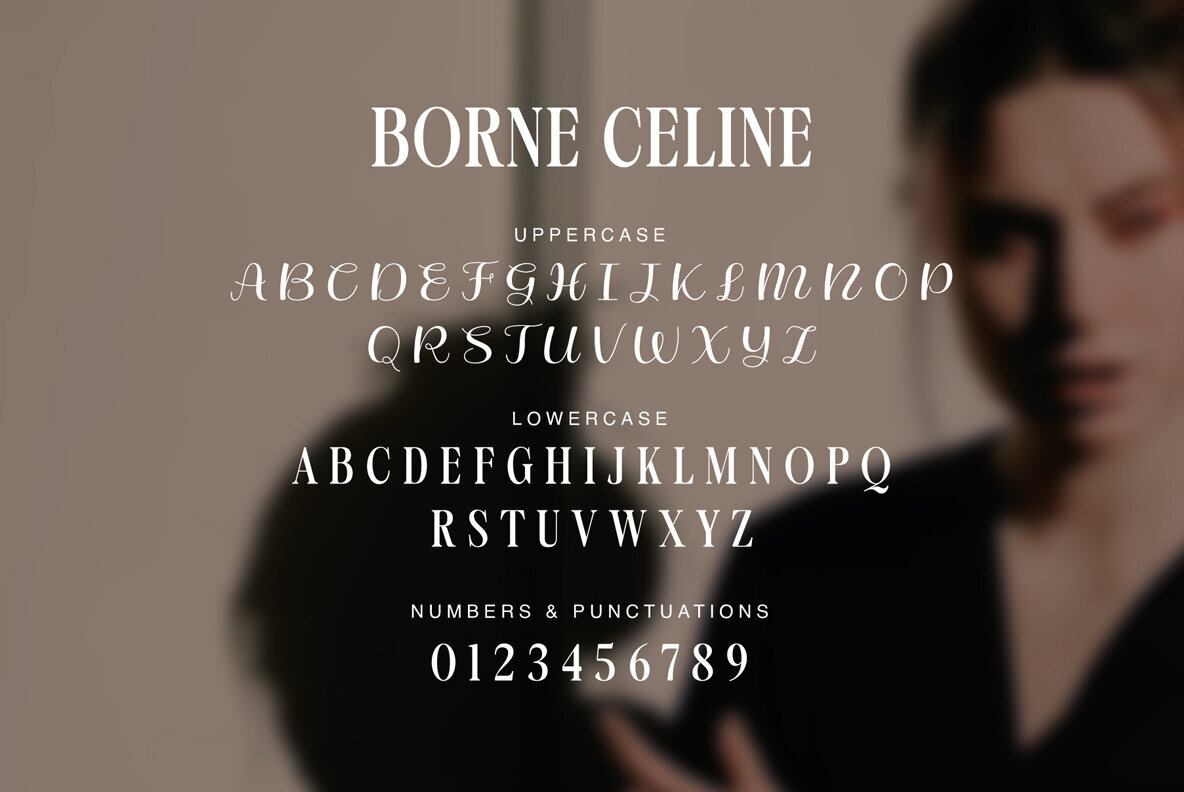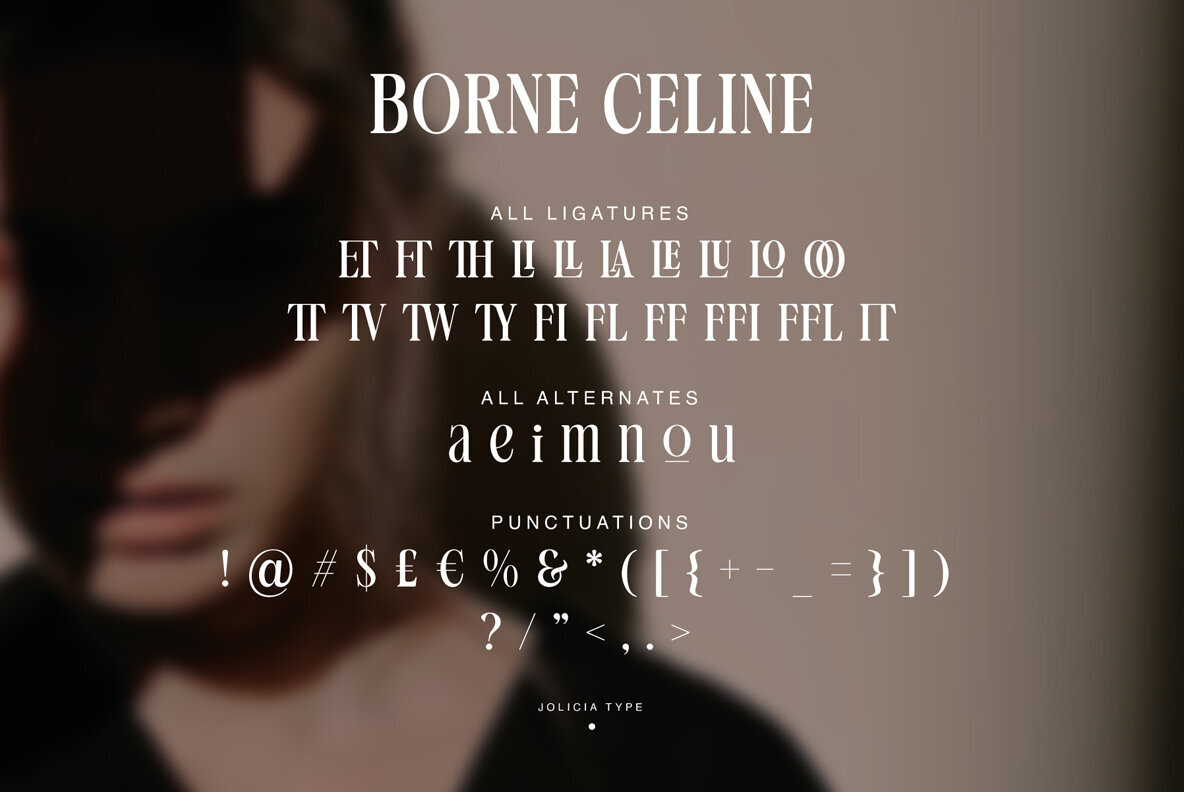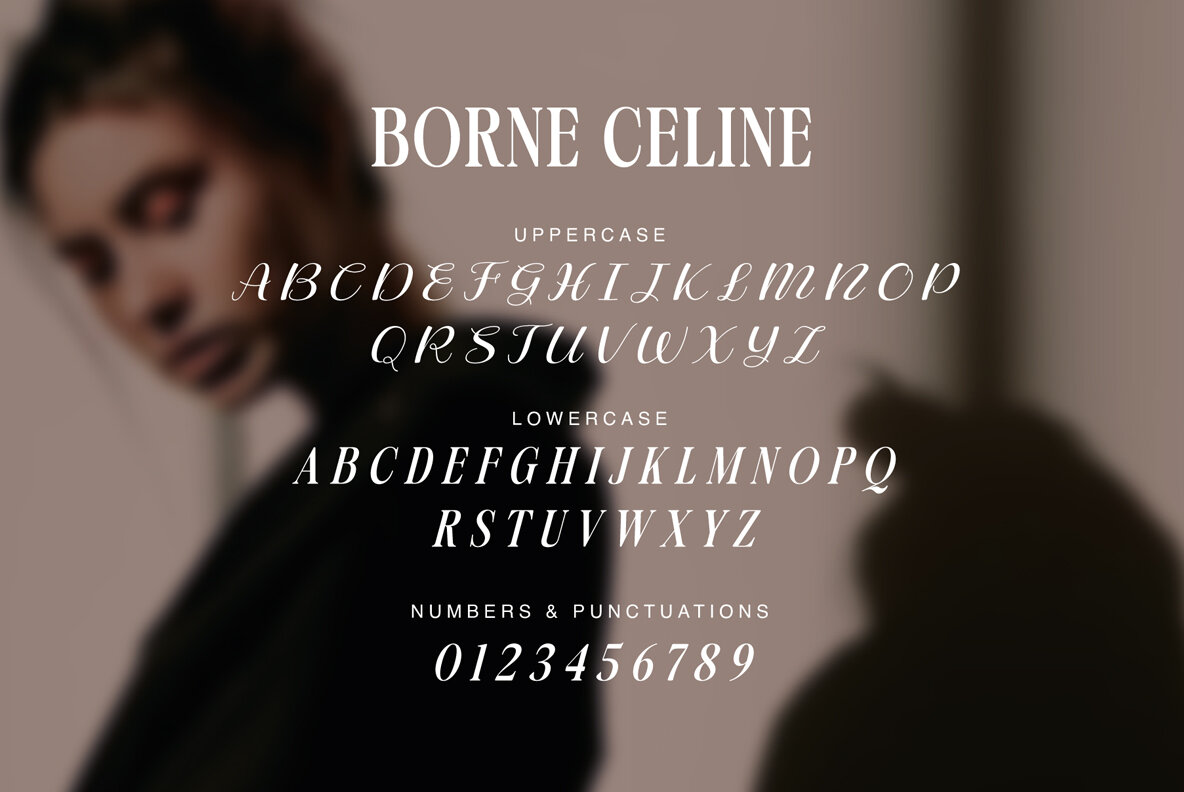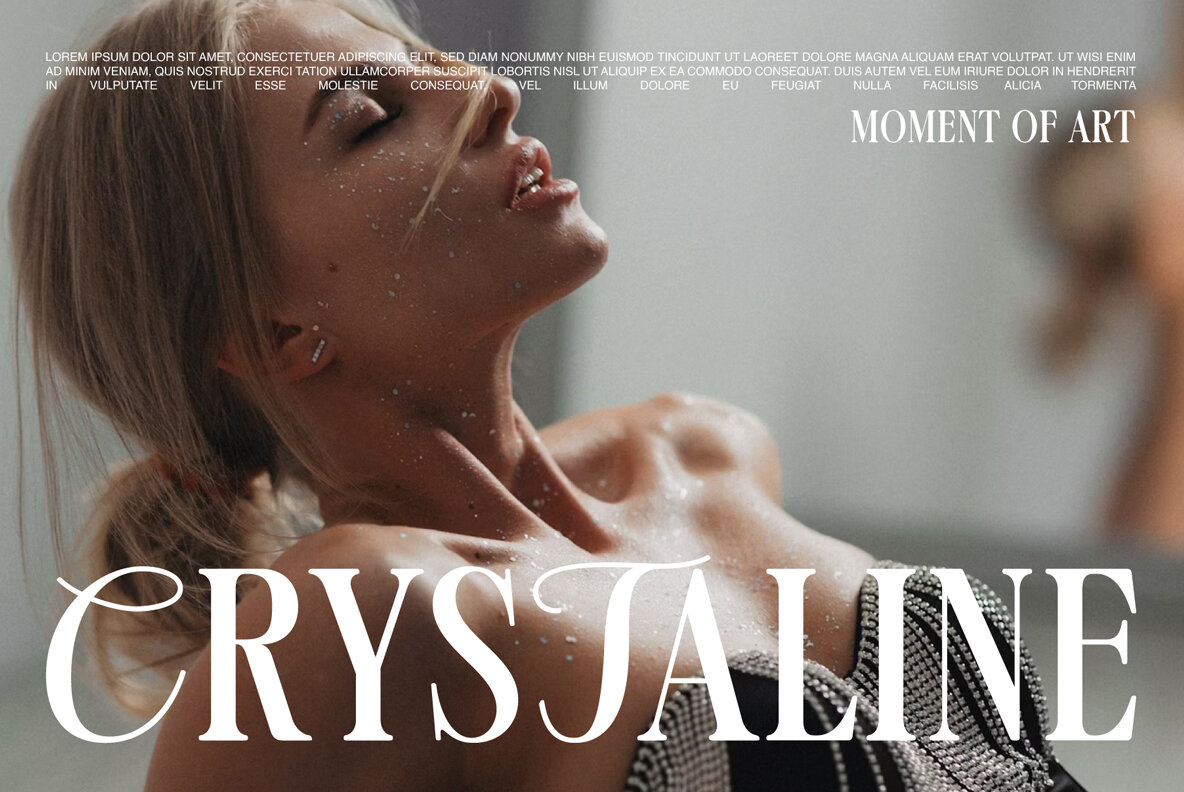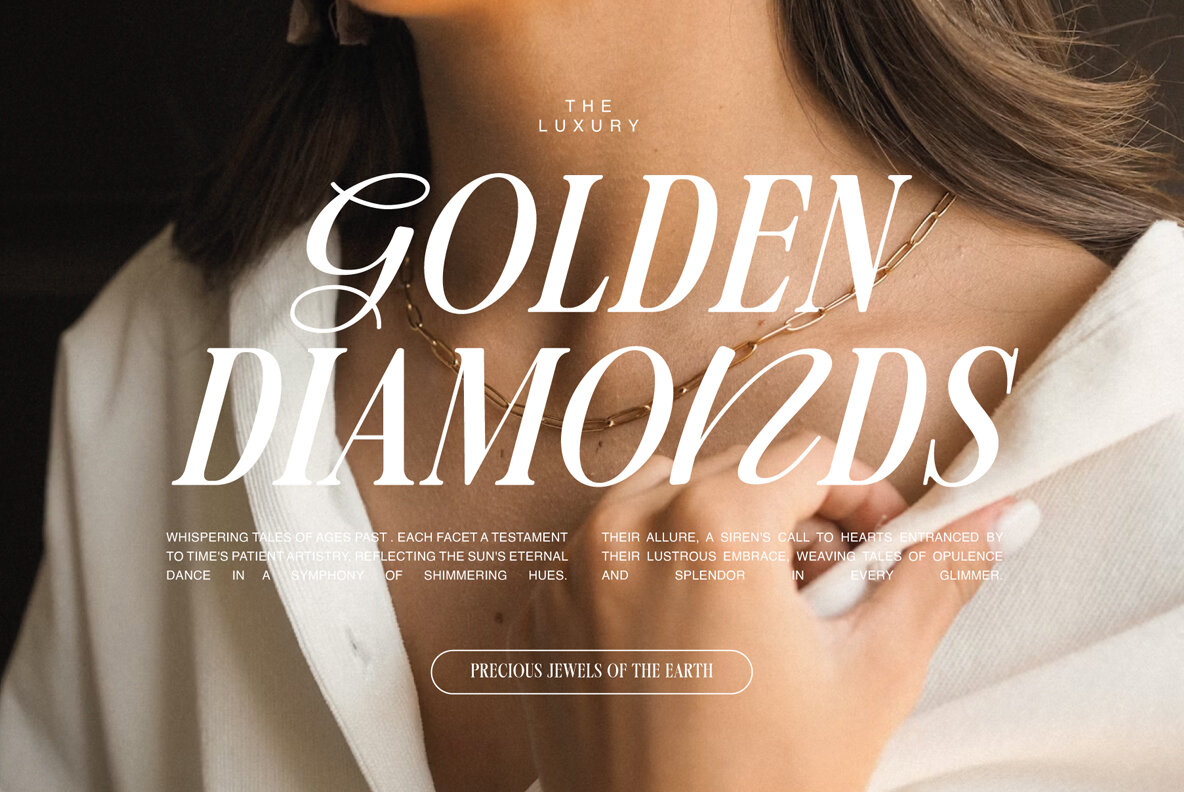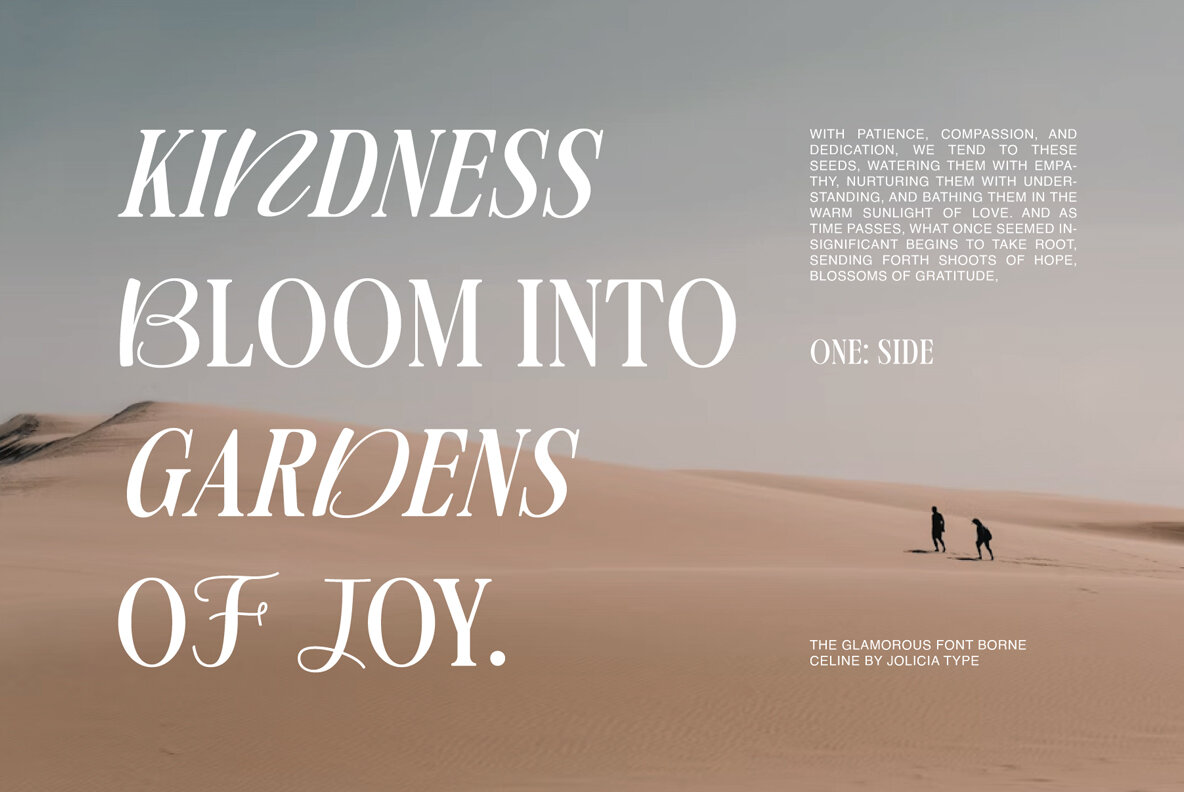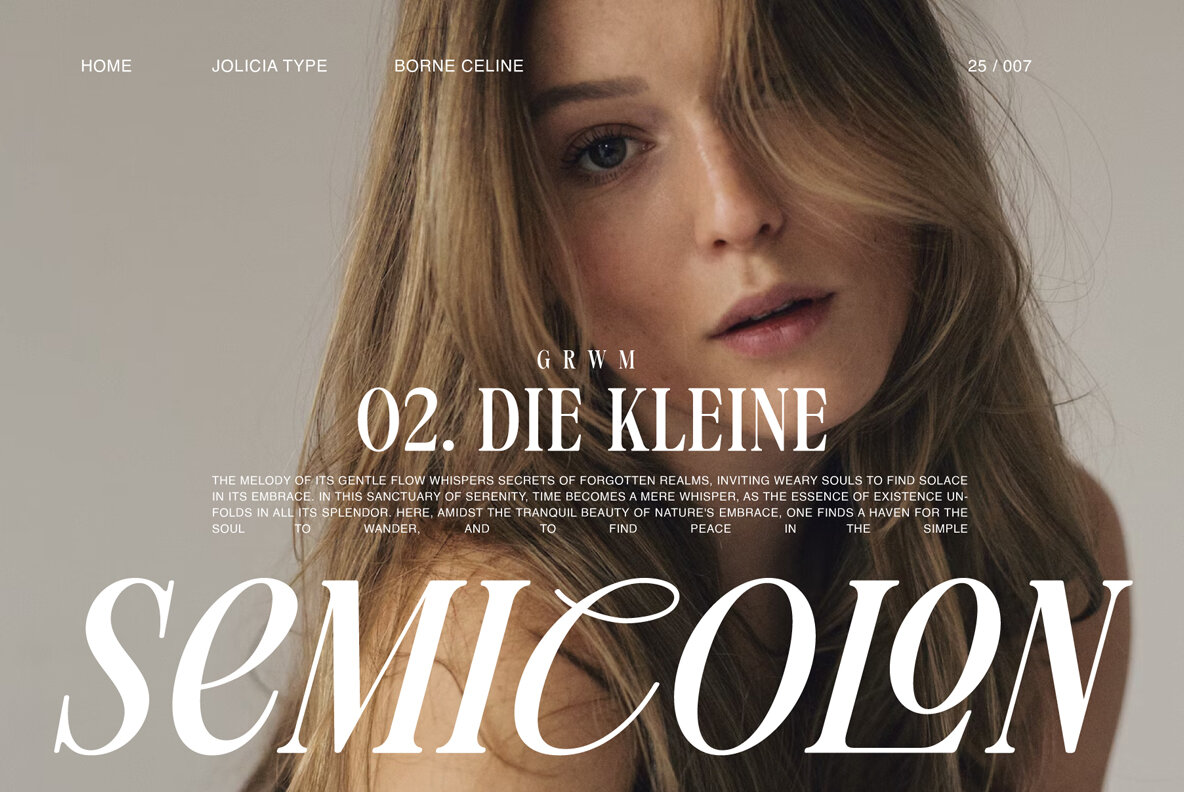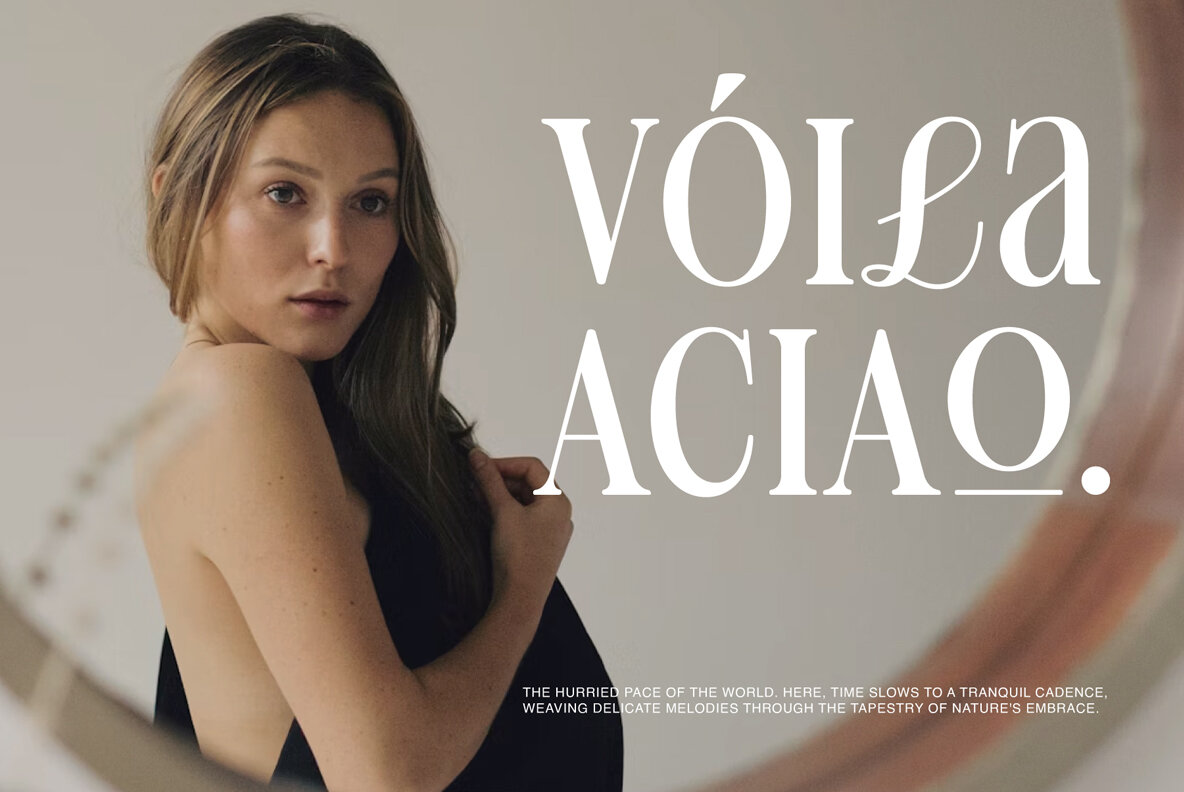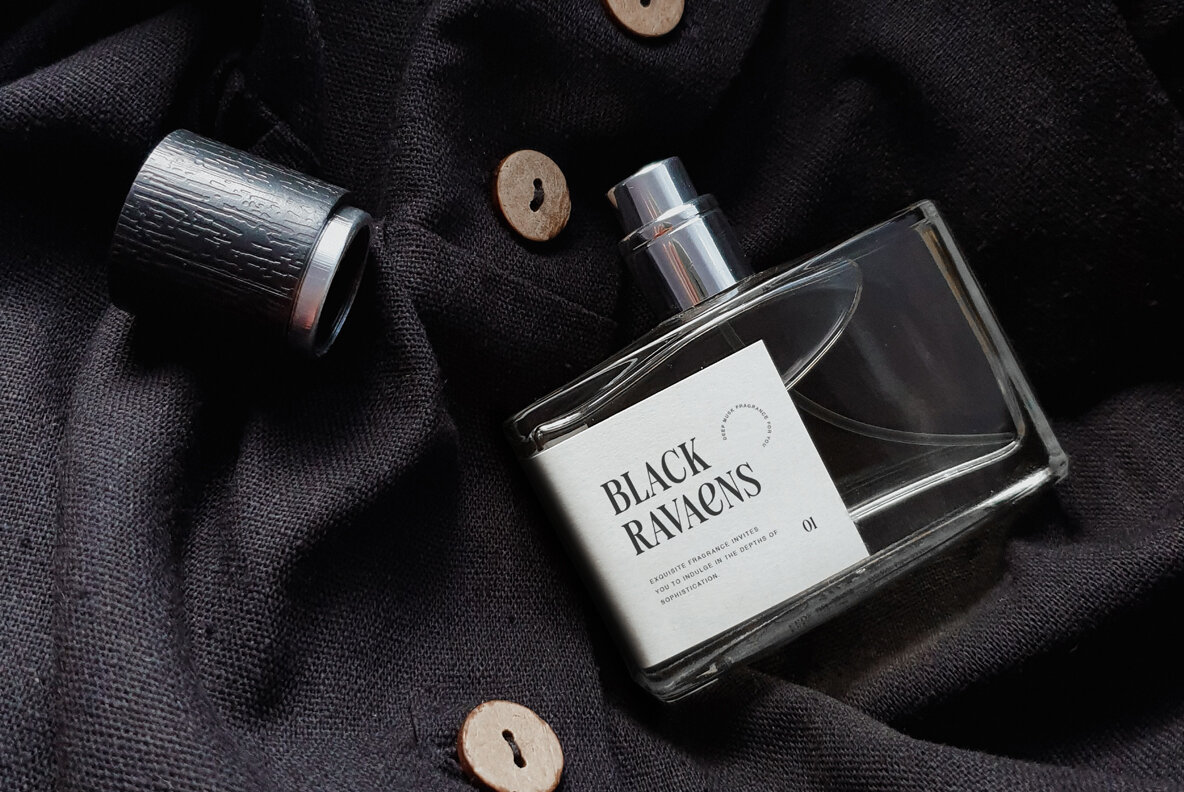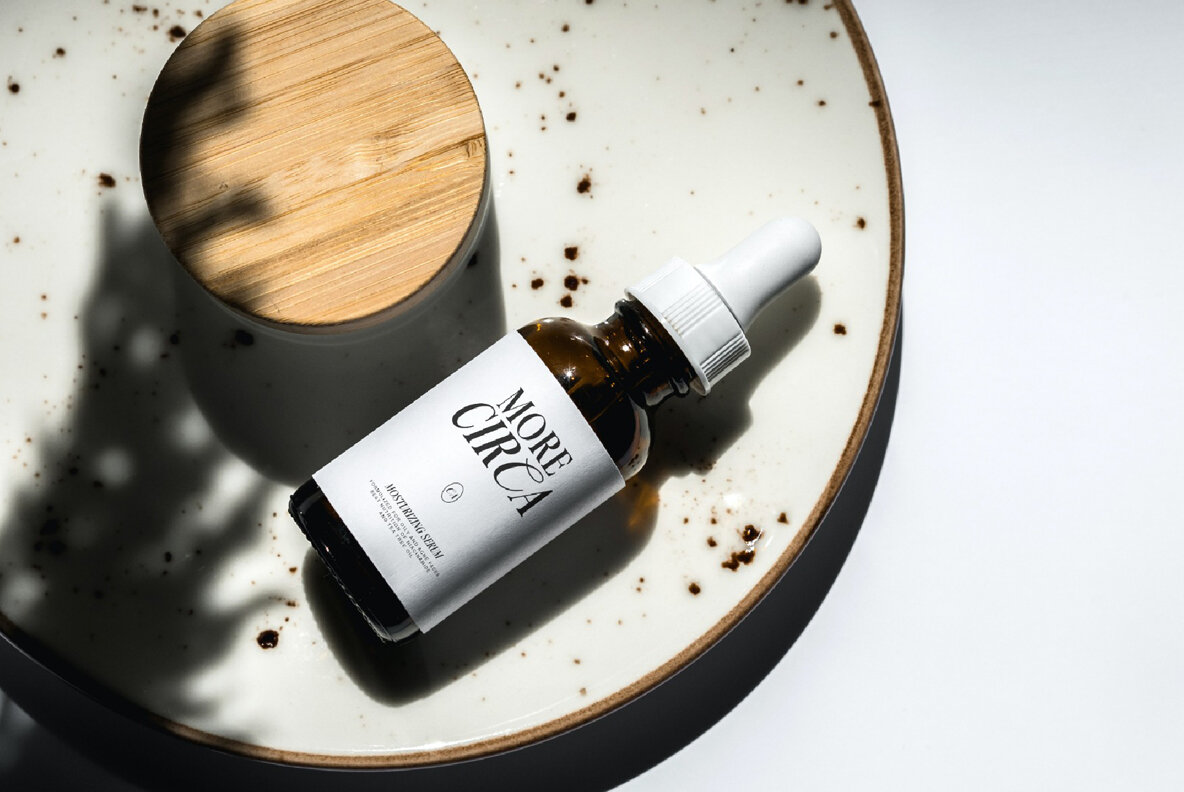
Borne Celine Font
Introducing Borne Celine, a sophisticated serif font infused with signature elegance. This meticulously crafted typeface features a harmonious blend of traditional serif elements and a signature touch, capturing the essence of Parisian chic. With its comprehensive set of regular and italic styles, along with meticulously crafted ligatures and alternate glyphs, Borne Celine offers designers a wide range of creative possibilities. Whether you're crafting elegant branding materials, editorial layouts, or stylish invitations, Borne Celine lends a touch of refinement and individuality to any project.